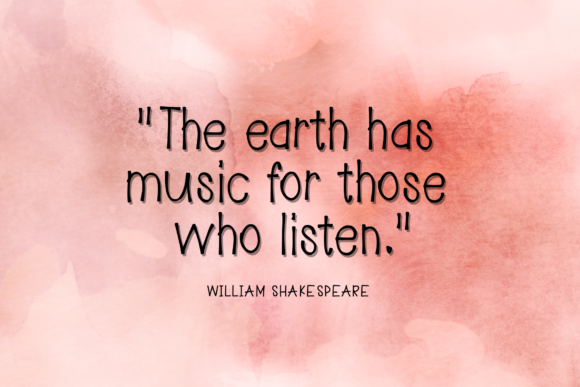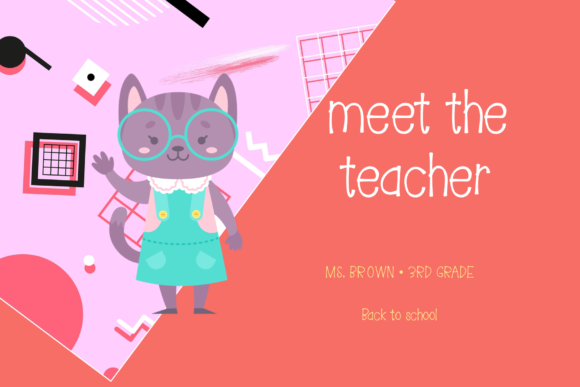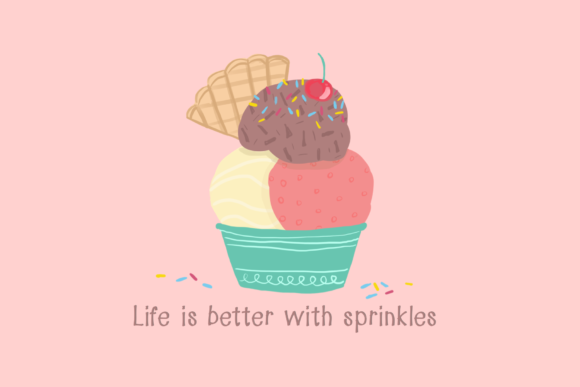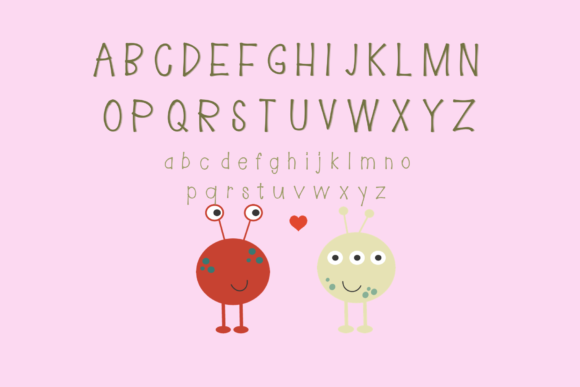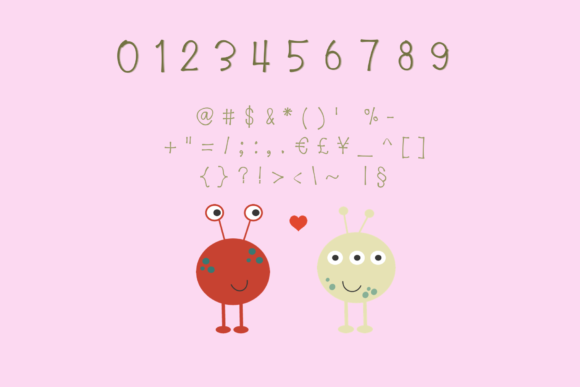
Bearhug Font: The Sweet and Friendly Handwritten Font for Your Designs
Are you looking for a font that can add a touch of warmth and personality to your designs? Look no further than Bearhug Font, a sweet and friendly handwritten font that’s perfect for a wide range of creative projects. In this article, we’ll take a closer look at Bearhug Font, its features, and how you can use it to take your designs to the next level.
What is Bearhug Font?
Bearhug Font is a beautiful, handwritten font that’s designed to bring a sense of warmth and approachability to your designs. Its natural and unique style makes it incredibly fitting to a large pool of designs, from playful and whimsical to elegant and sophisticated. Whether you’re a designer, crafter, or DIY enthusiast, Bearhug Font is a versatile and easy-to-use font that’s sure to become a favorite in your collection.
Key Features of Bearhug Font
So, what makes Bearhug Font so special? Here are just a few of its key features:
- Handwritten style: Bearhug Font has a beautiful, handwritten style that’s perfect for adding a personal touch to your designs.
- Natural and unique: The font’s natural and unique style makes it stand out from more traditional fonts, and ensures that your designs will be eye-catching and memorable.
- Versatile: Bearhug Font is incredibly versatile, and can be used for a wide range of designs, from invitations and greeting cards to logos and branding materials.
How to Use Bearhug Font in Your Designs
Now that we’ve covered the basics of Bearhug Font, let’s take a look at how you can use it in your designs. Here are a few ideas to get you started:
- Invitations and greeting cards: Bearhug Font is perfect for creating personalized invitations and greeting cards for special occasions like weddings, birthdays, and holidays.
- Logos and branding materials: The font’s unique and memorable style makes it a great choice for logos and branding materials, especially for businesses that want to convey a sense of warmth and approachability.
- Social media graphics: Bearhug Font can add a touch of personality to your social media graphics, from Facebook posts to Instagram stories.
- Crafting and DIY projects: If you’re a crafter or DIY enthusiast, Bearhug Font is a great choice for adding a personal touch to your projects, from handmade cards to knitted items.
Tips for Getting the Most Out of Bearhug Font
Here are a few tips for getting the most out of Bearhug Font:
- Experiment with different colors and textures: Bearhug Font looks great in a variety of colors and textures, so don’t be afraid to experiment and find the combination that works best for your design.
- Pair it with other fonts: Bearhug Font can be paired with other fonts to create a unique and eye-catching design. Try pairing it with a bold, sans-serif font for a striking contrast.
- Use it consistently: To create a cohesive look, try using Bearhug Font consistently throughout your design. This will help to create a sense of continuity and flow.
In conclusion, Bearhug Font is a sweet and friendly handwritten font that’s perfect for designers, crafters, and DIY enthusiasts. Its natural and unique style makes it incredibly fitting to a large pool of designs, and its versatility and ease of use make it a great choice for a wide range of creative projects. Whether you’re looking to add a touch of warmth and personality to your designs, or simply want to try something new and different, Bearhug Font is definitely worth checking out.